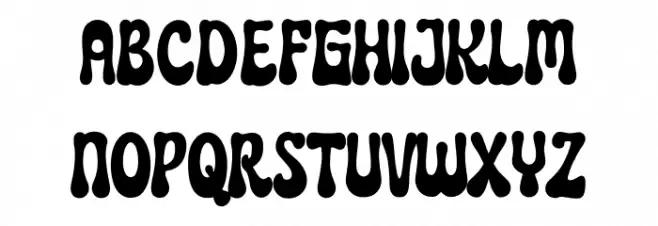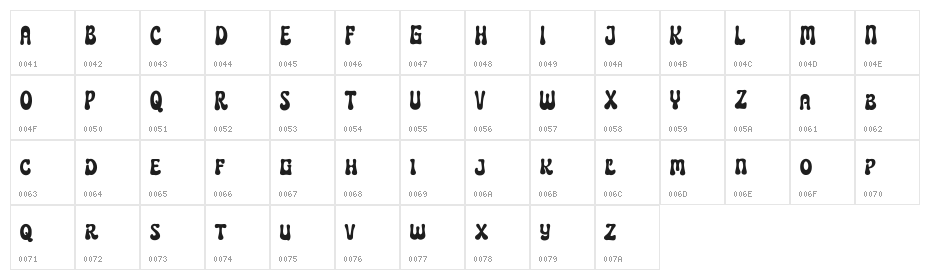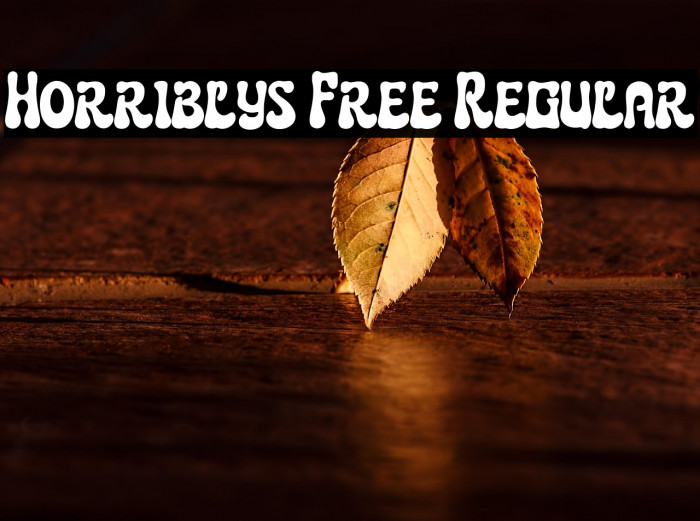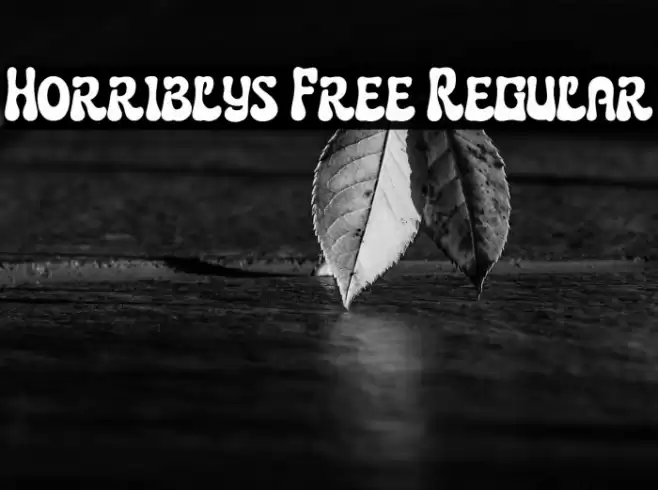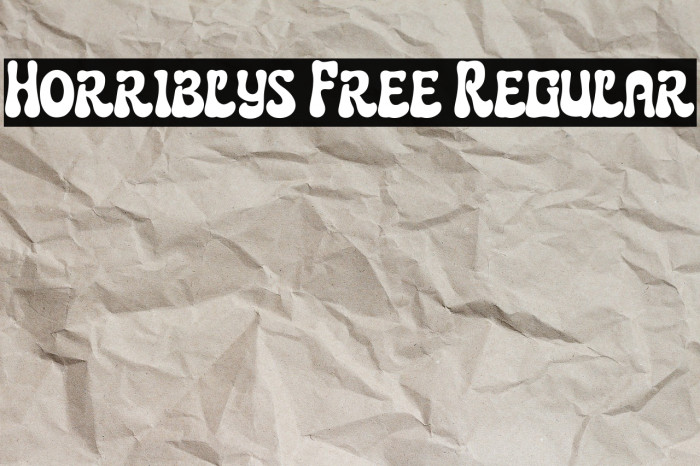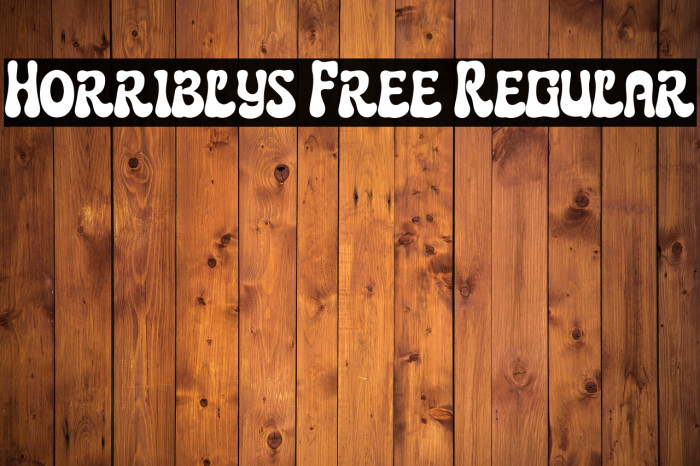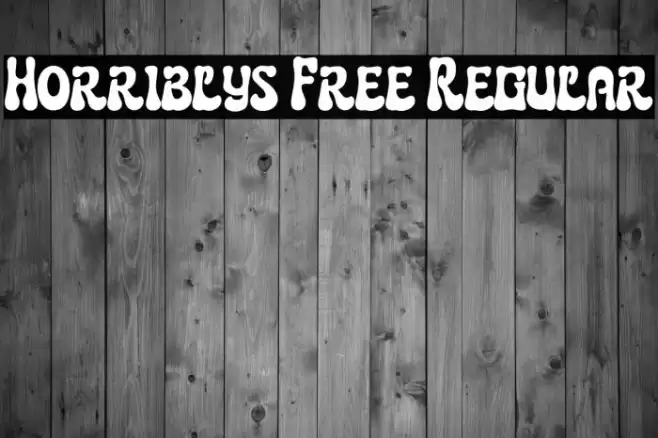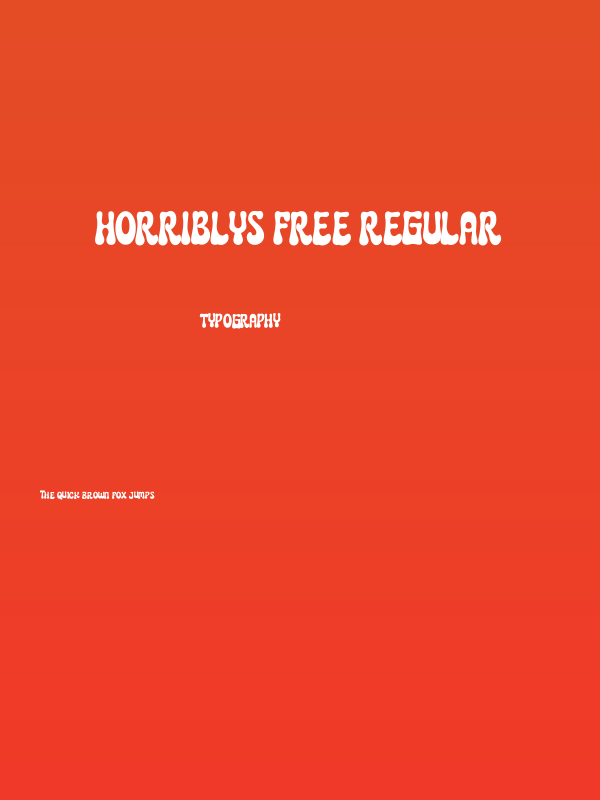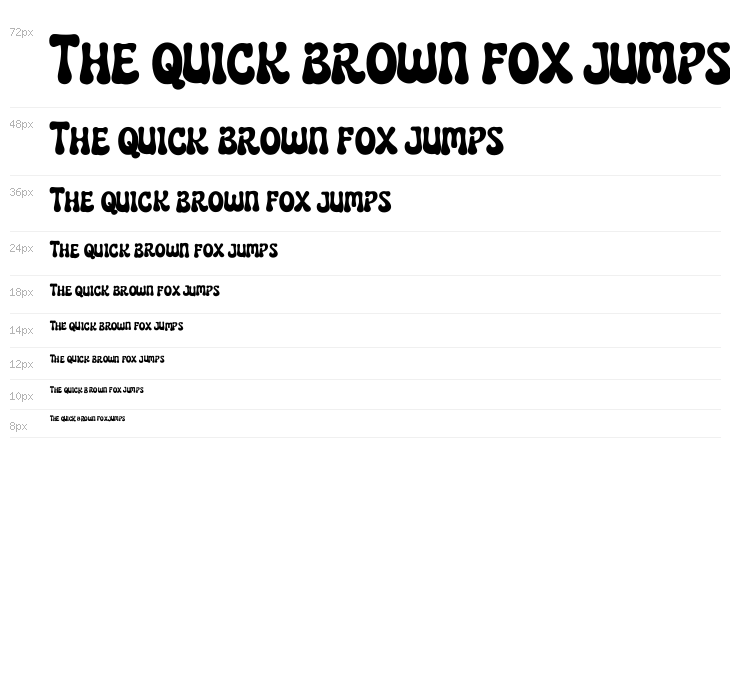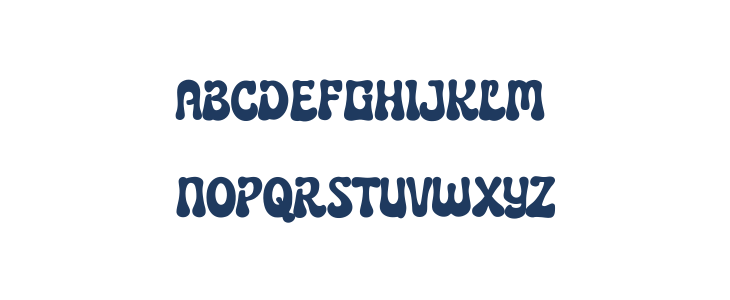
Horriblys Free Regular Font
Horriblys Free Regular Description
This font features a playful and bold design with rounded, bubbly characters that give it a whimsical and friendly appearance. The letters are thick and have a uniform stroke width, creating a cohesive look across the alphabet. The style is reminiscent of retro or vintage designs, making it suitable for projects that require a touch of nostalgia or fun. The characters are well-spaced, ensuring readability while maintaining a unique and eye-catching aesthetic. This font is ideal for creative and informal applications, where a sense of playfulness is desired.
| Overall Style | Retro, Playful |
| Proposed Projects | Ideal for children's books, playful branding, retro-themed posters, and creative invitations. |